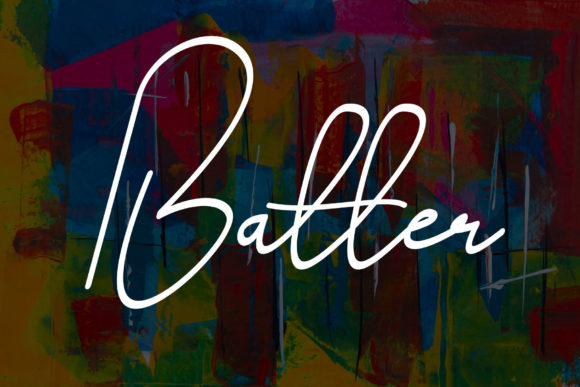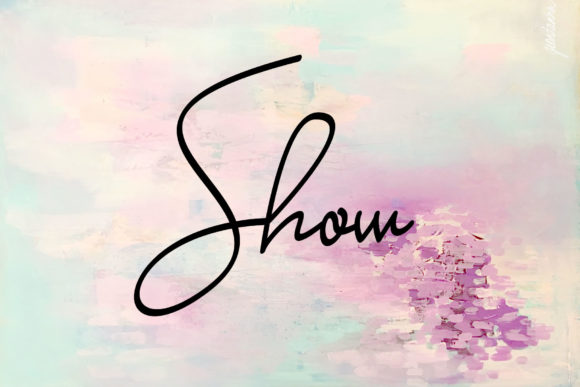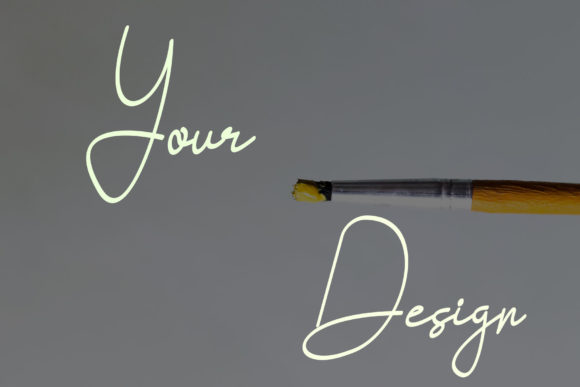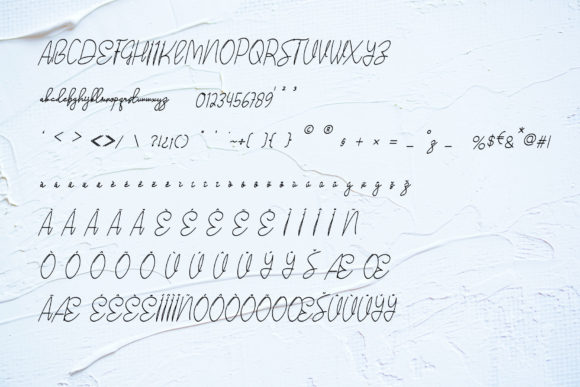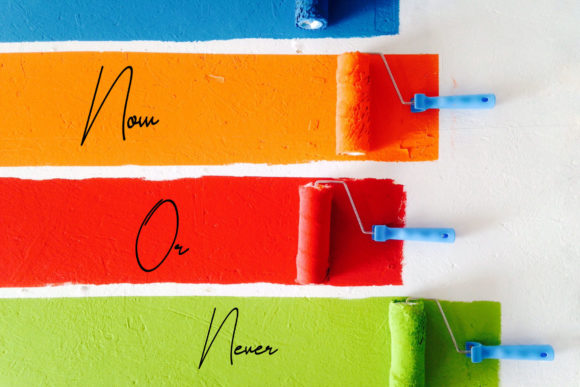
Batter Font
About Batter Font
Batter is a handwritten font that can be used for all chalkboard quotes or teaching material! Its authentic handwritten look and feel will add a personal and realistic feel to your designs.